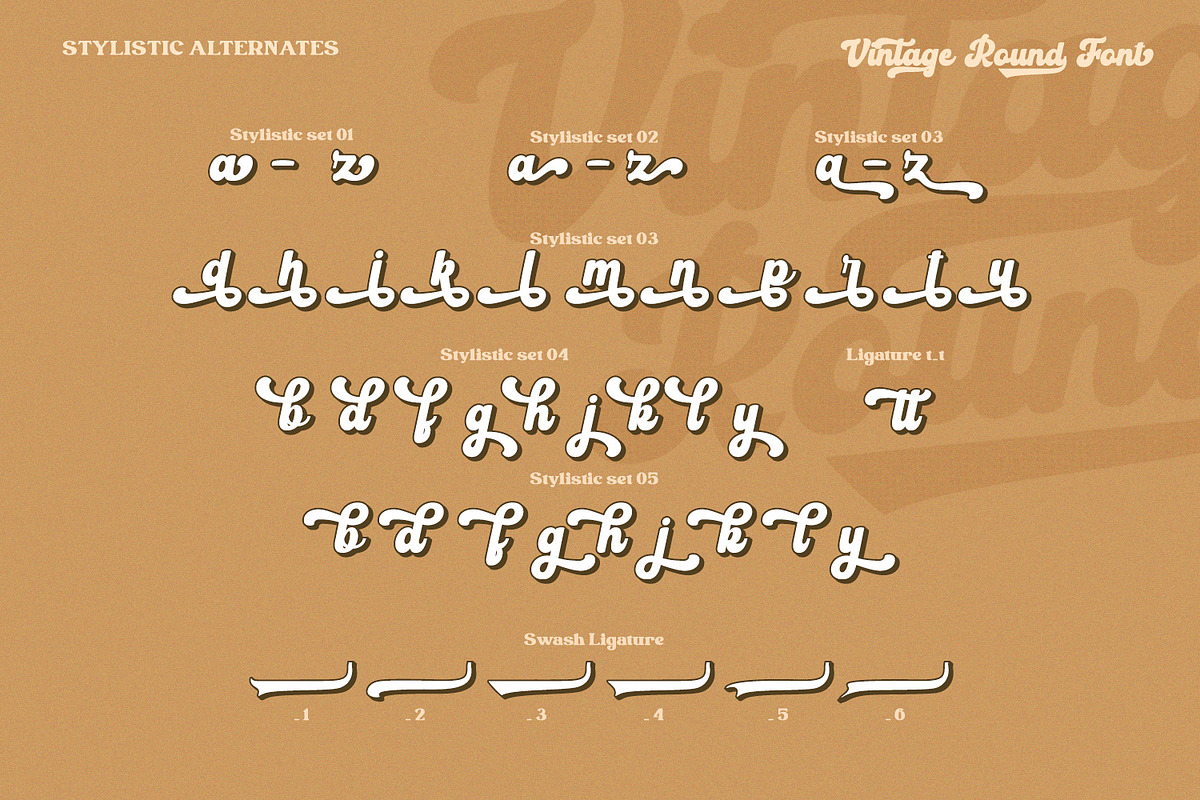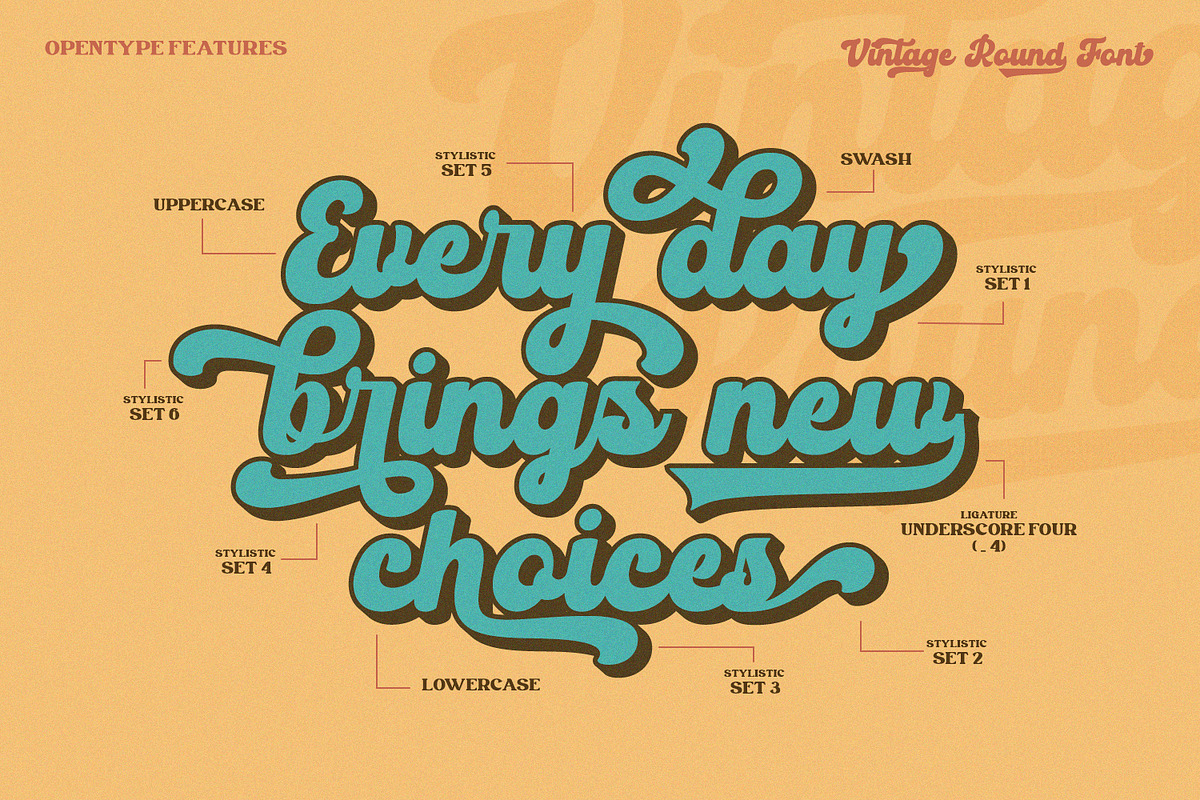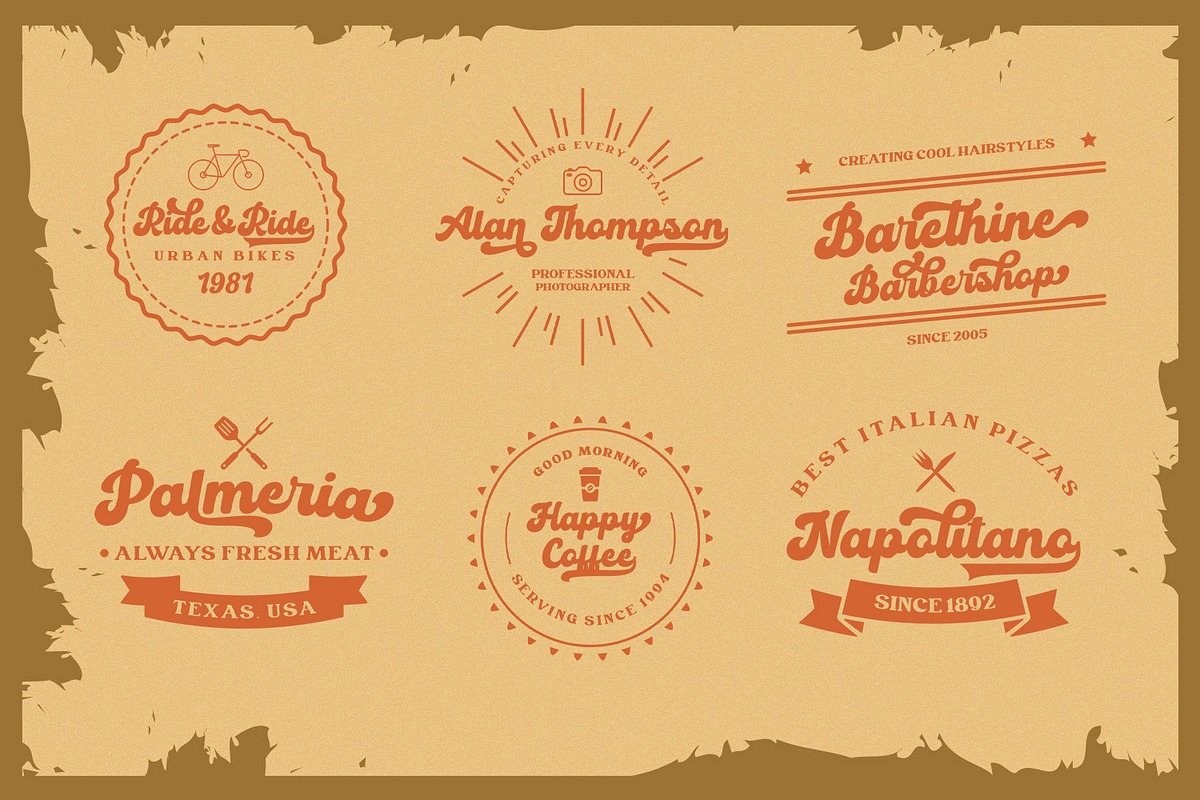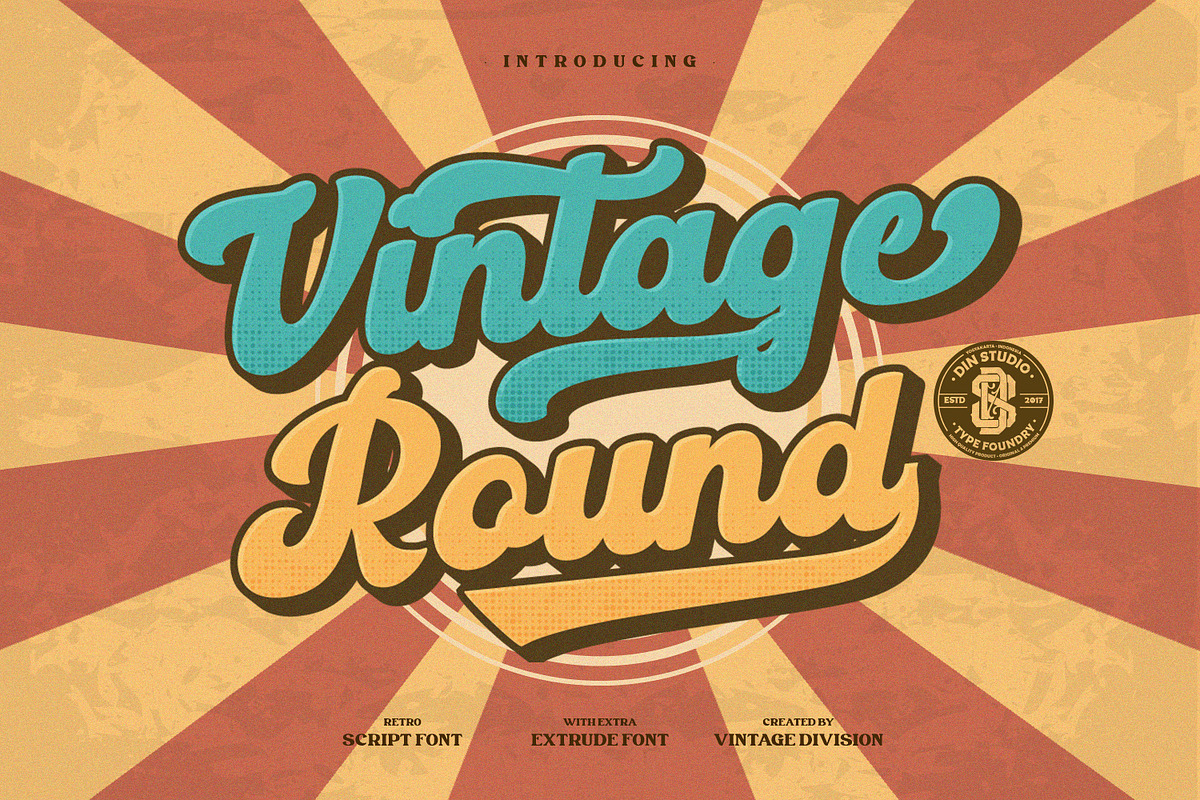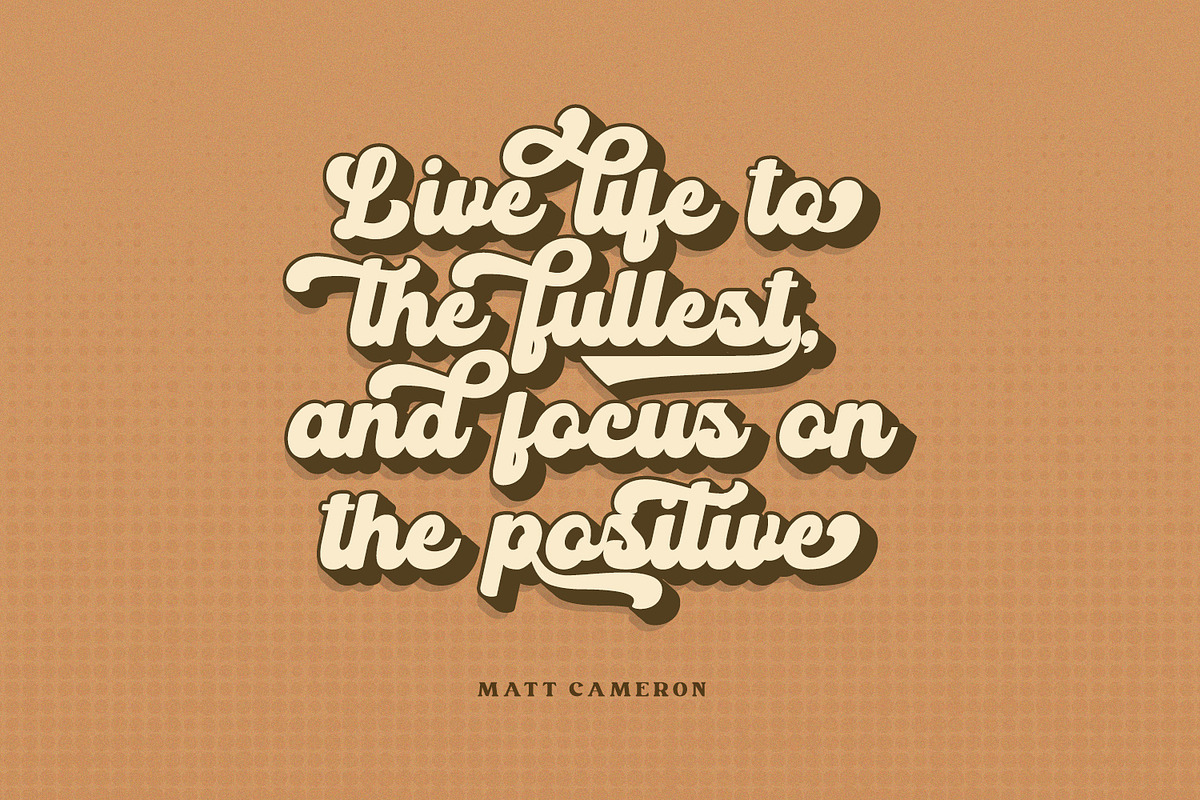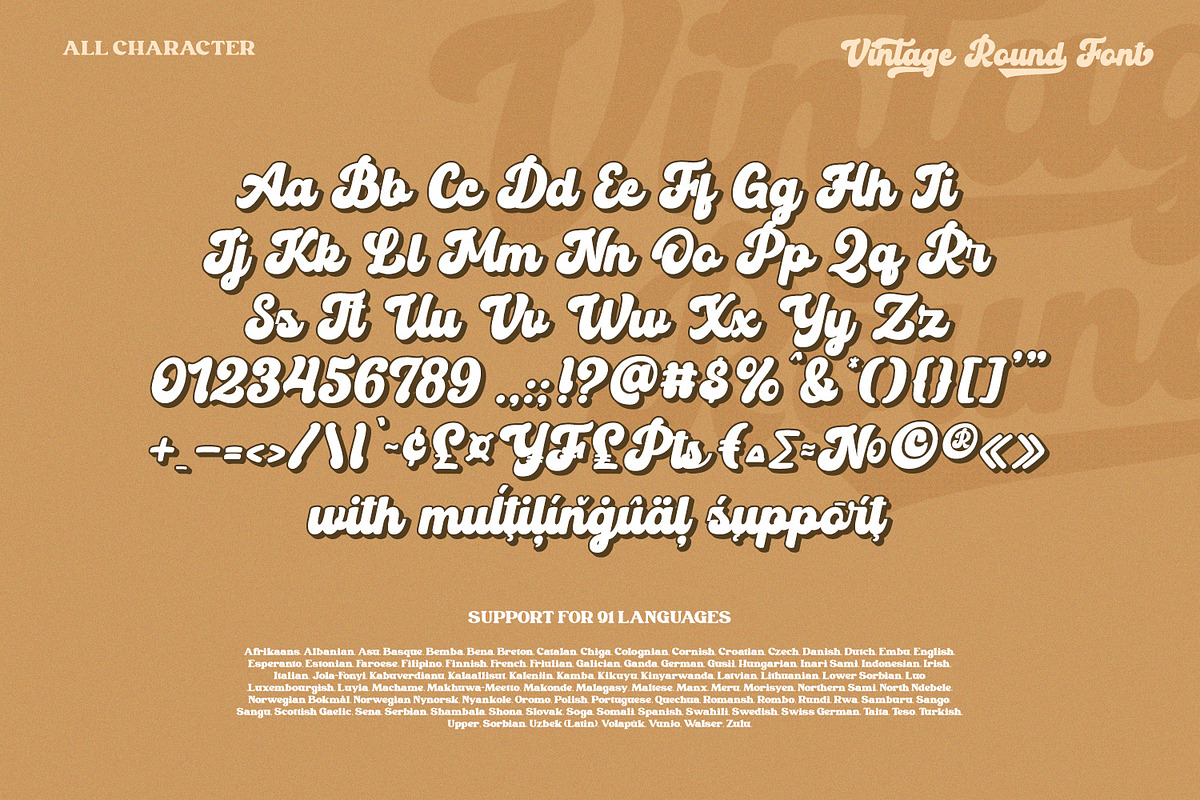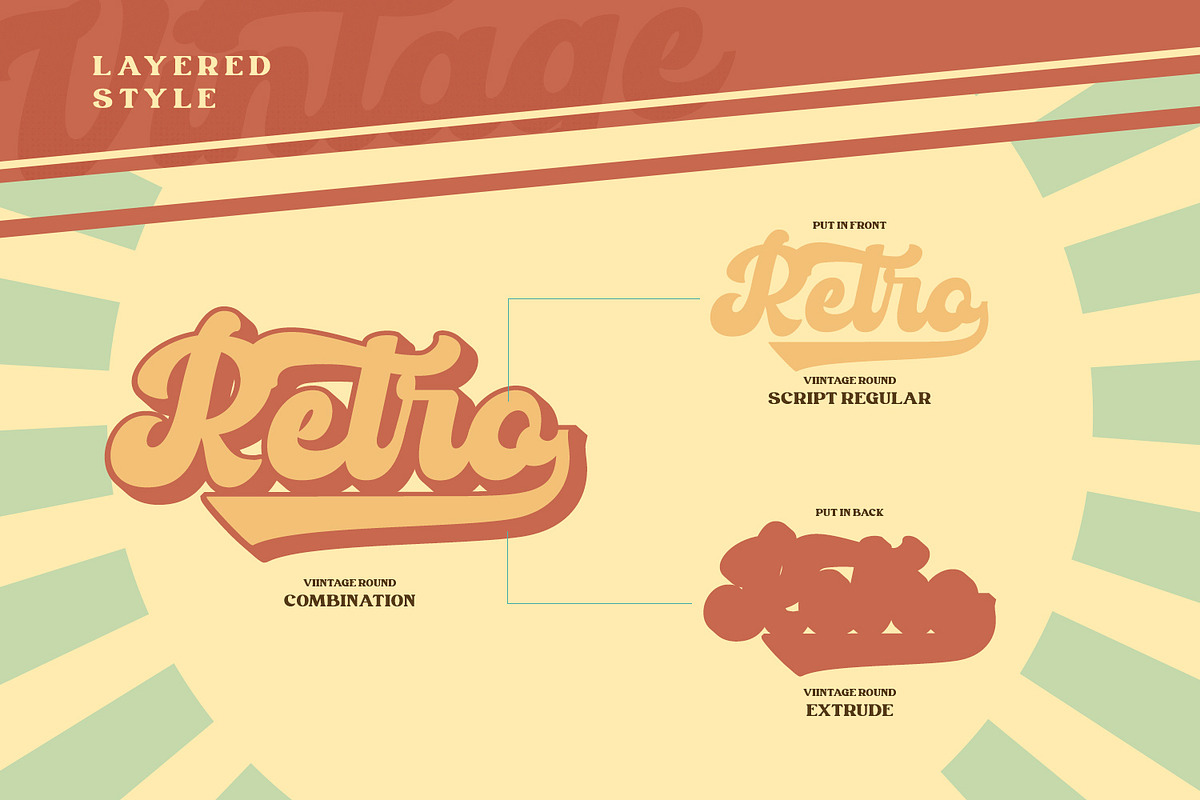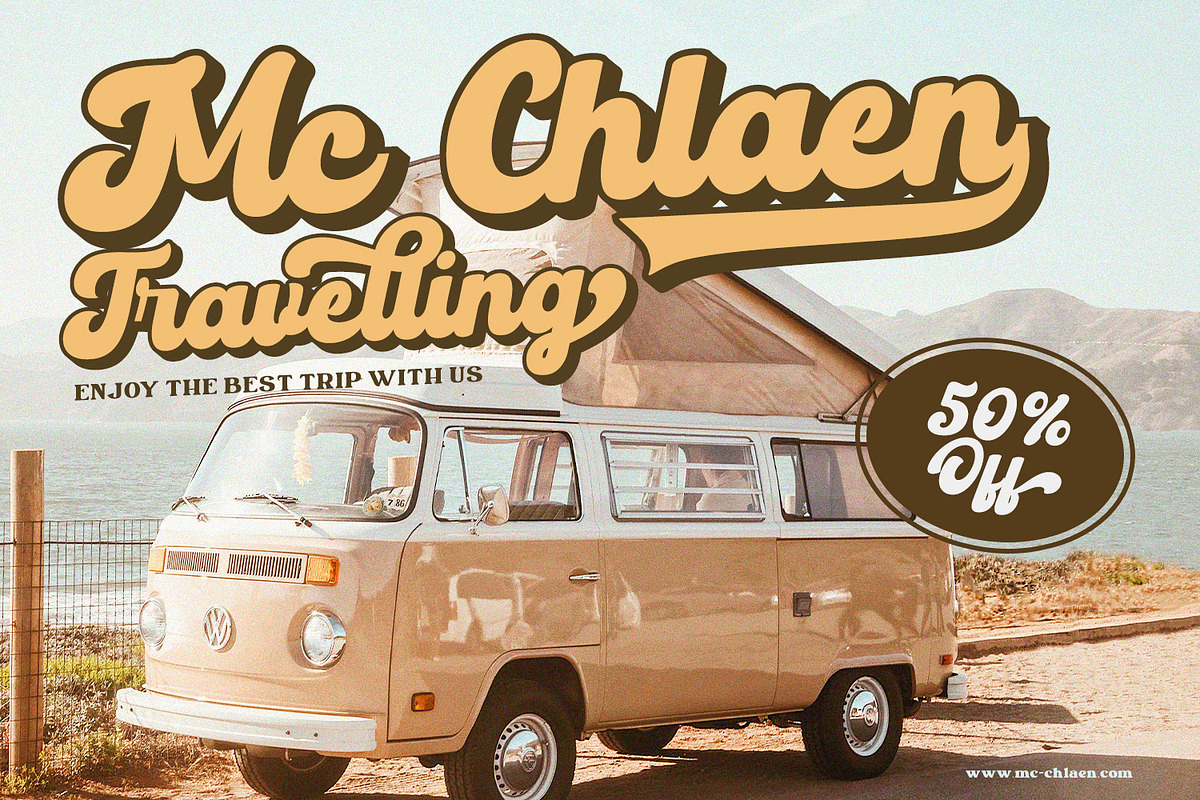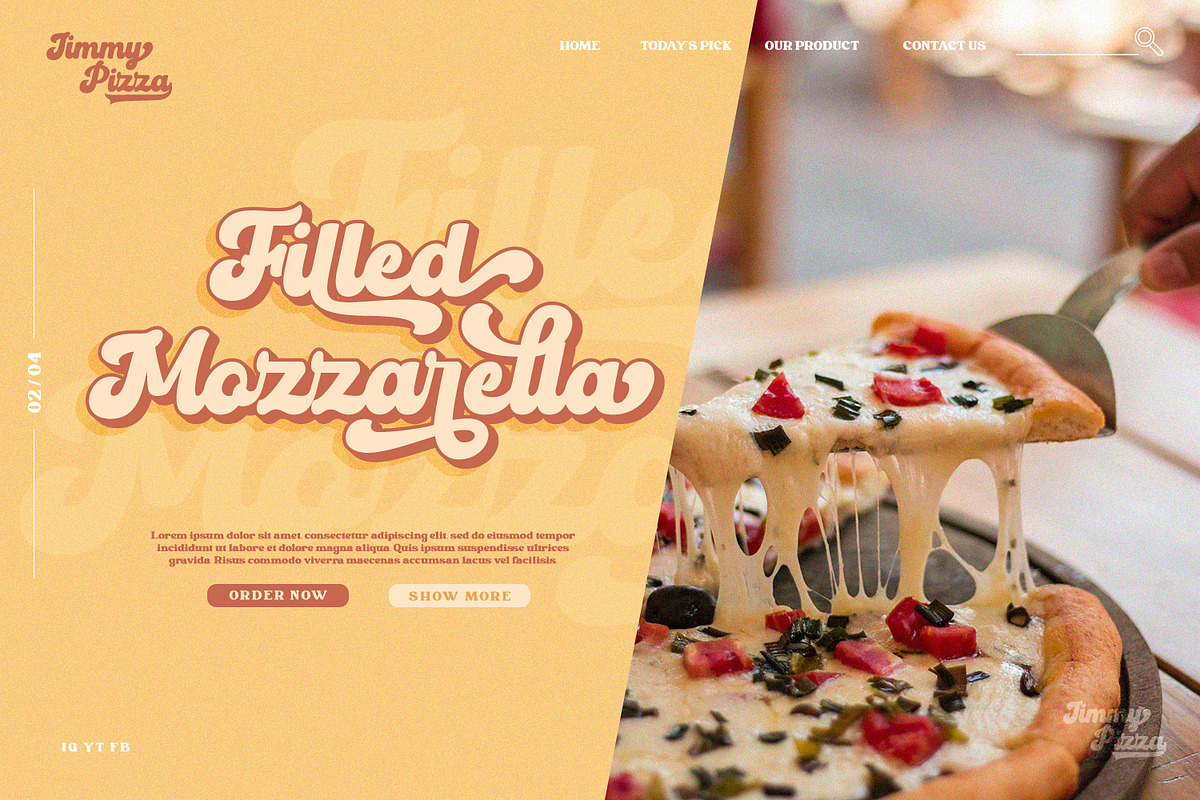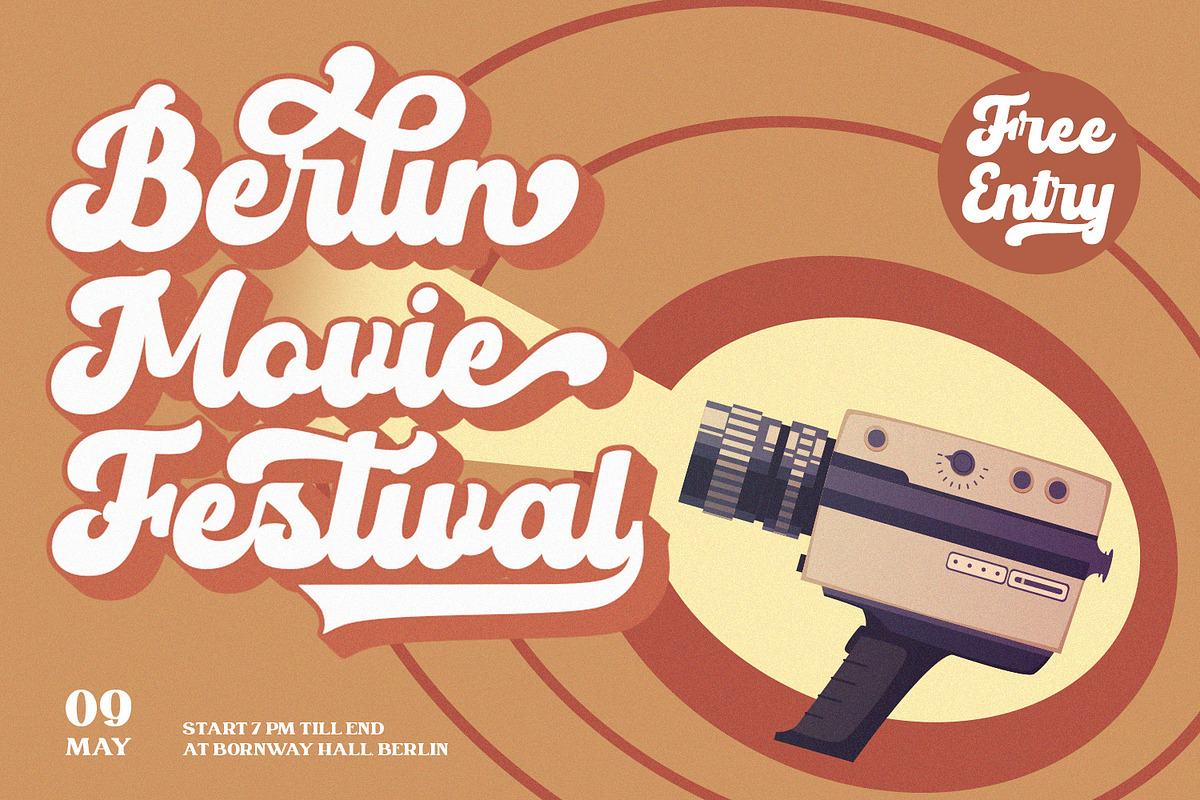
Vintage Round
Introducing Vintage Round- A Retro Script Font
This vintage font features thick and angular letters. With its strong outlines and fat strokes, this is the font you need when you want to create that classic bubble font look. This font becomes more special with extruding version option. This font can be used for a host of different content needs and projects. Create gorgeous printed quotes, standout packaging, or beautiful t-shirts! You can even use it to create amazing headings, logos, menus, and social media graphics.
Our font always includes Multilingual Support to make your branding reach a global audience.
- Stylistic Set